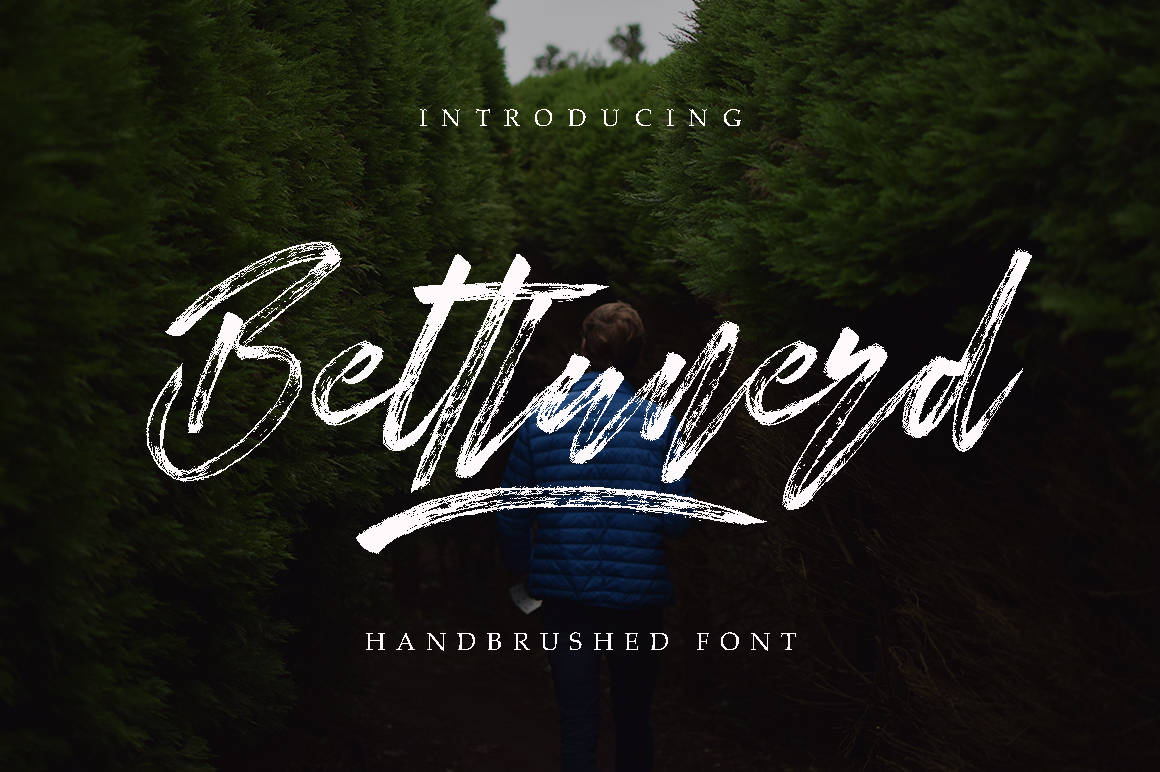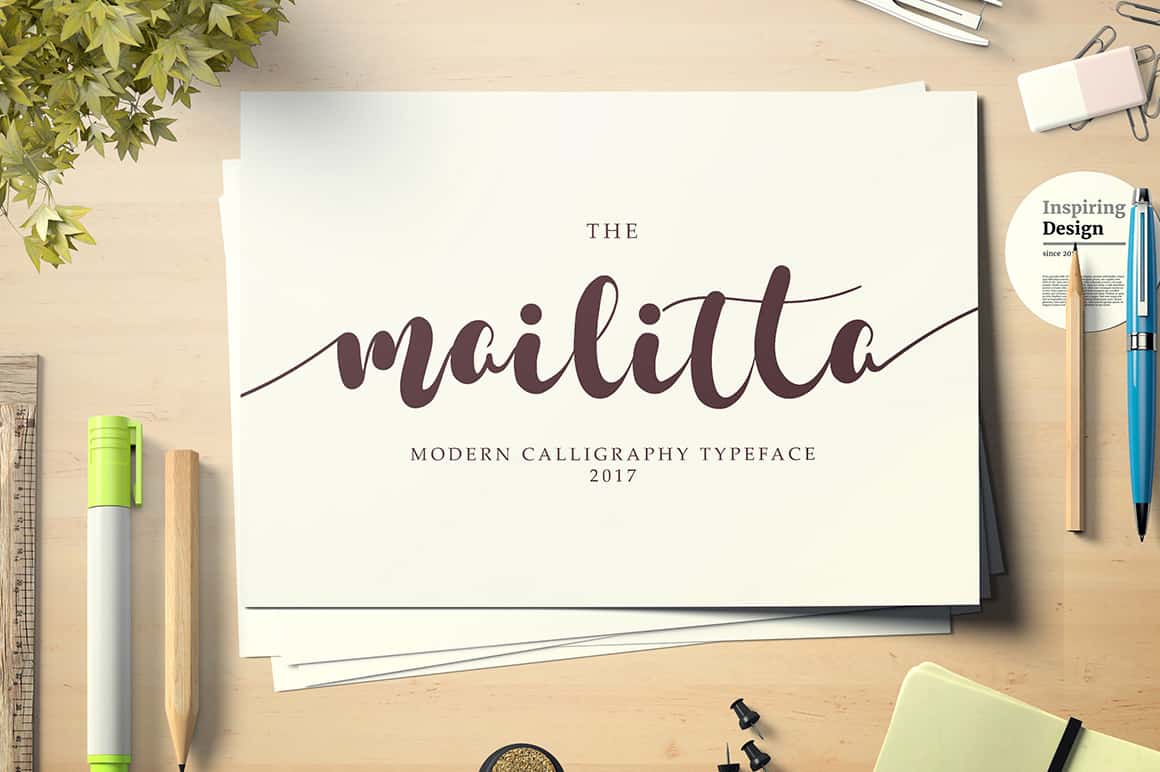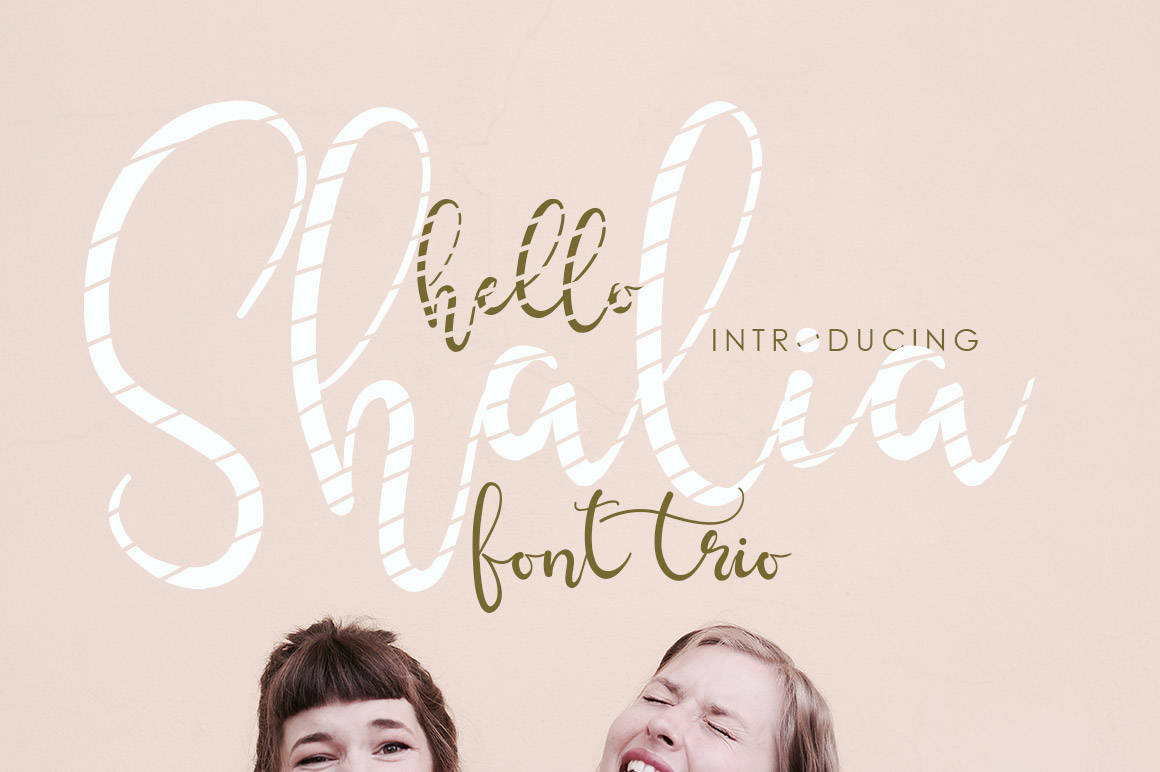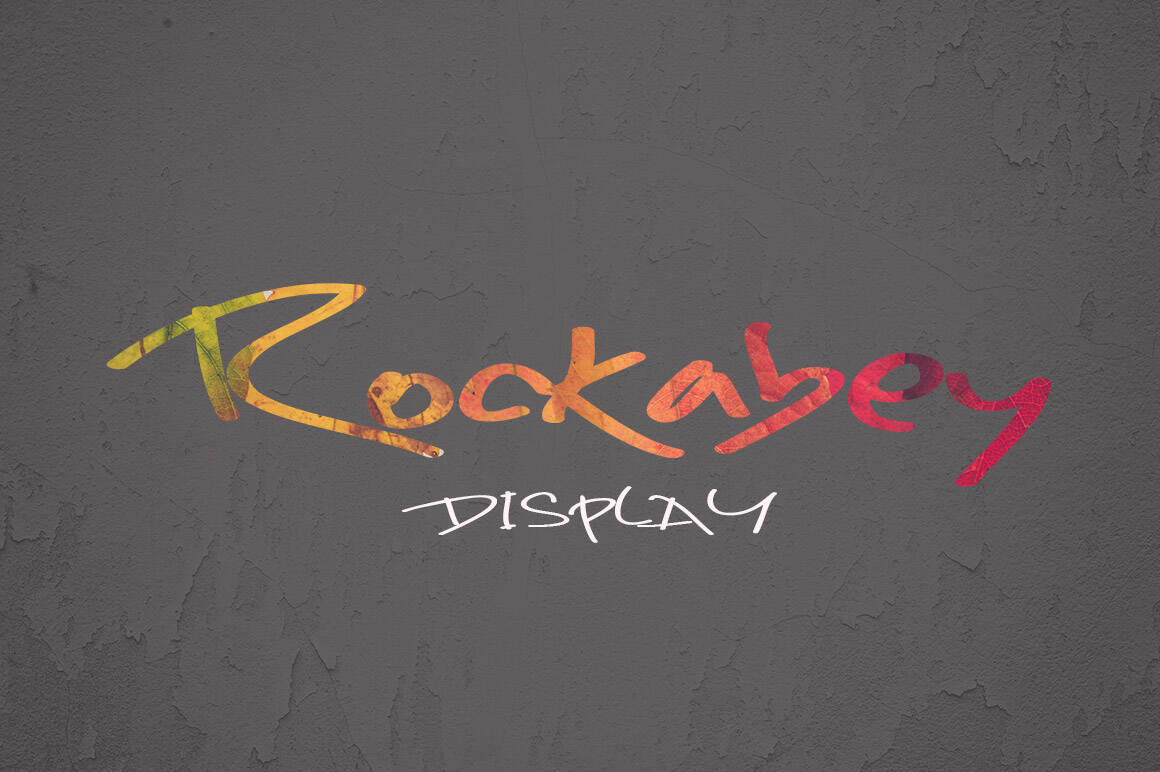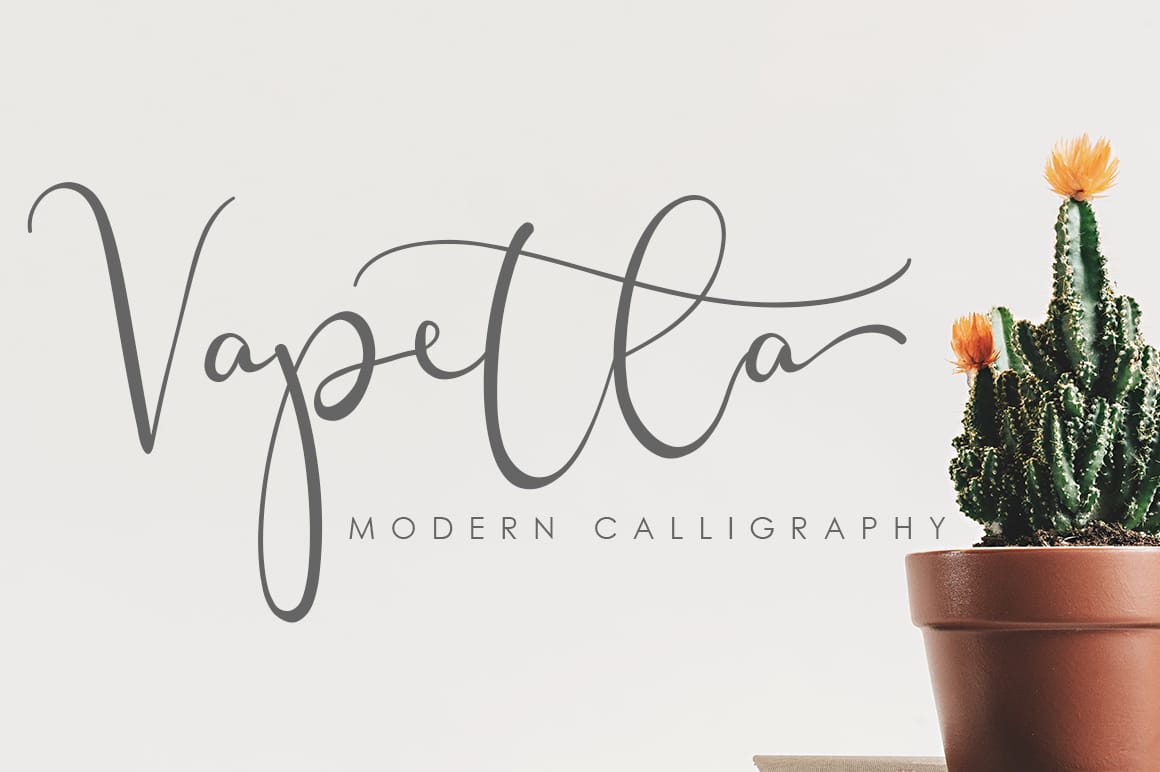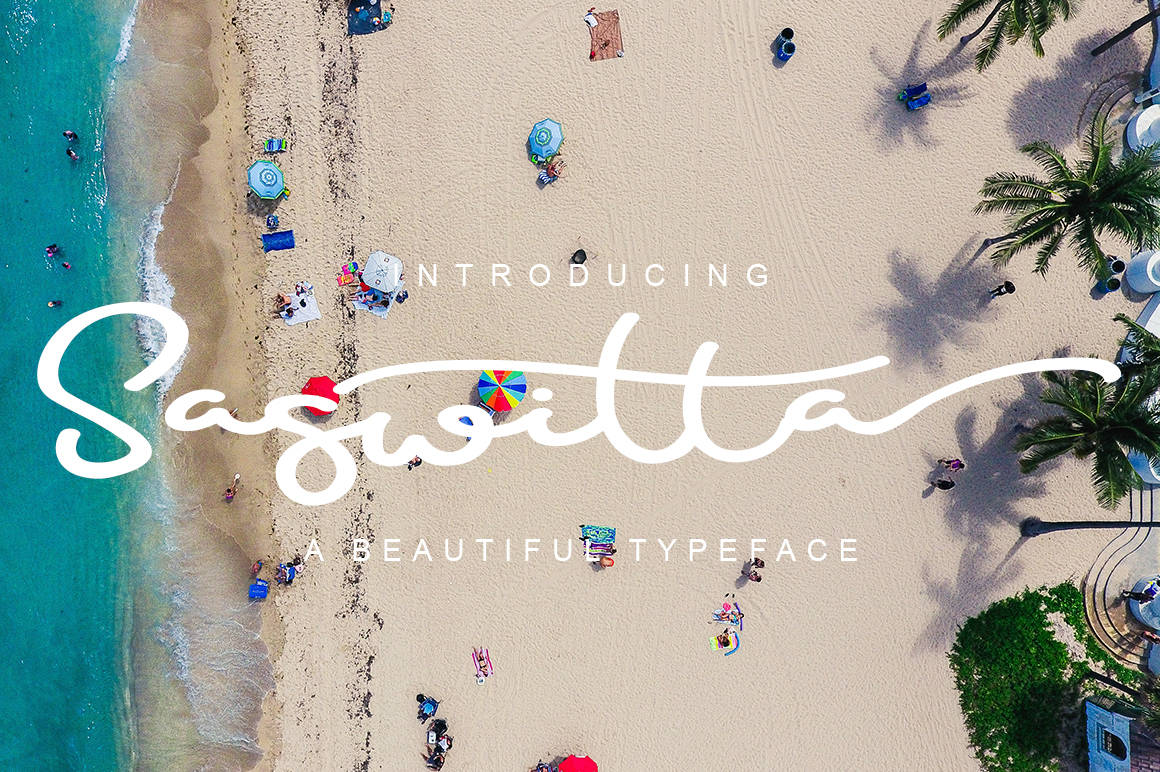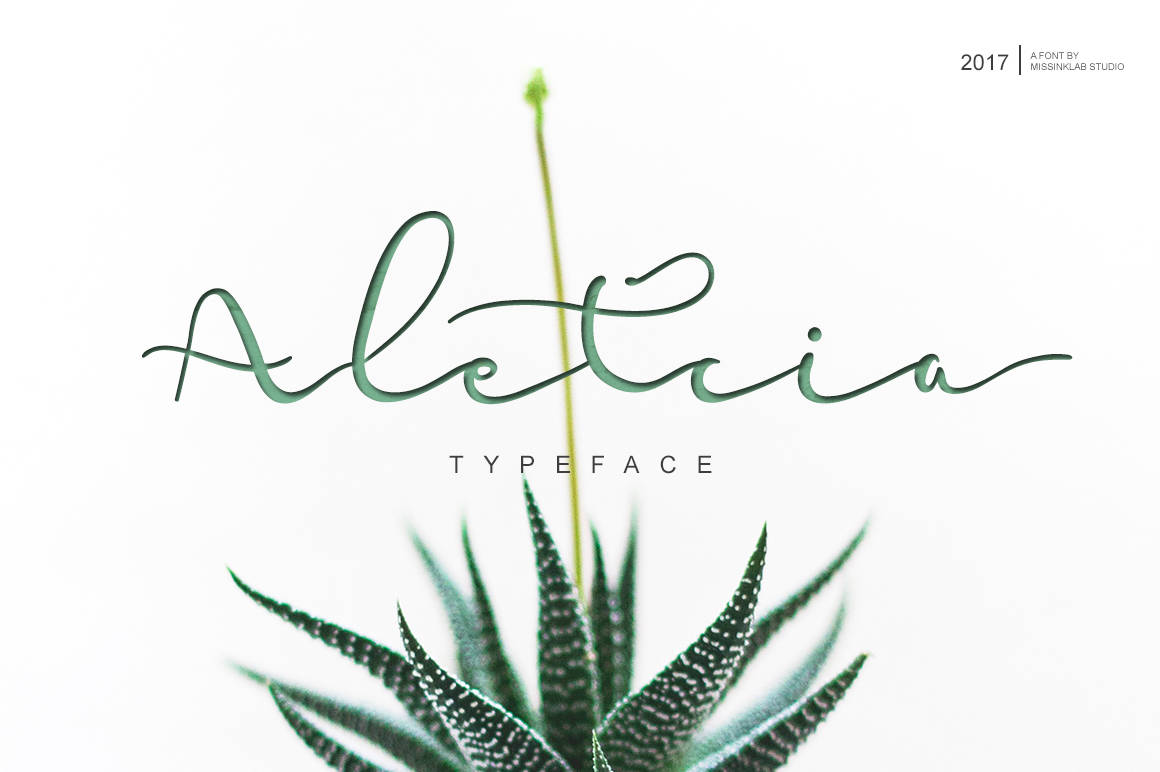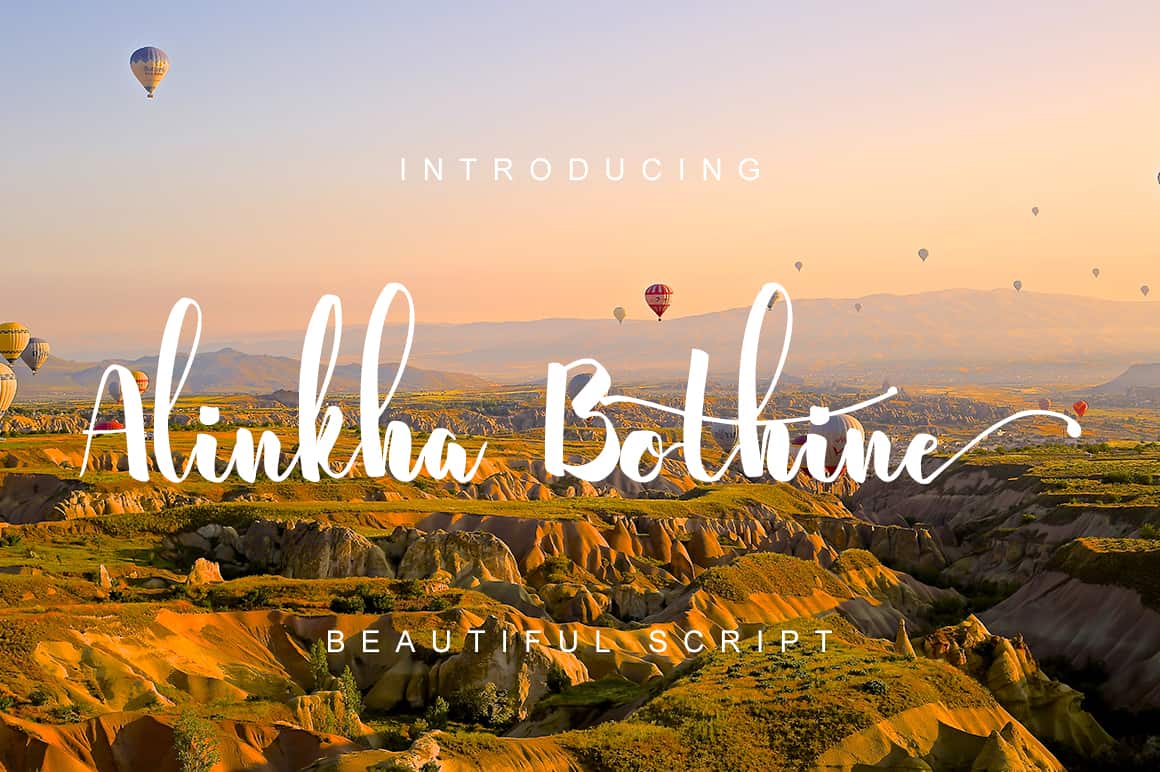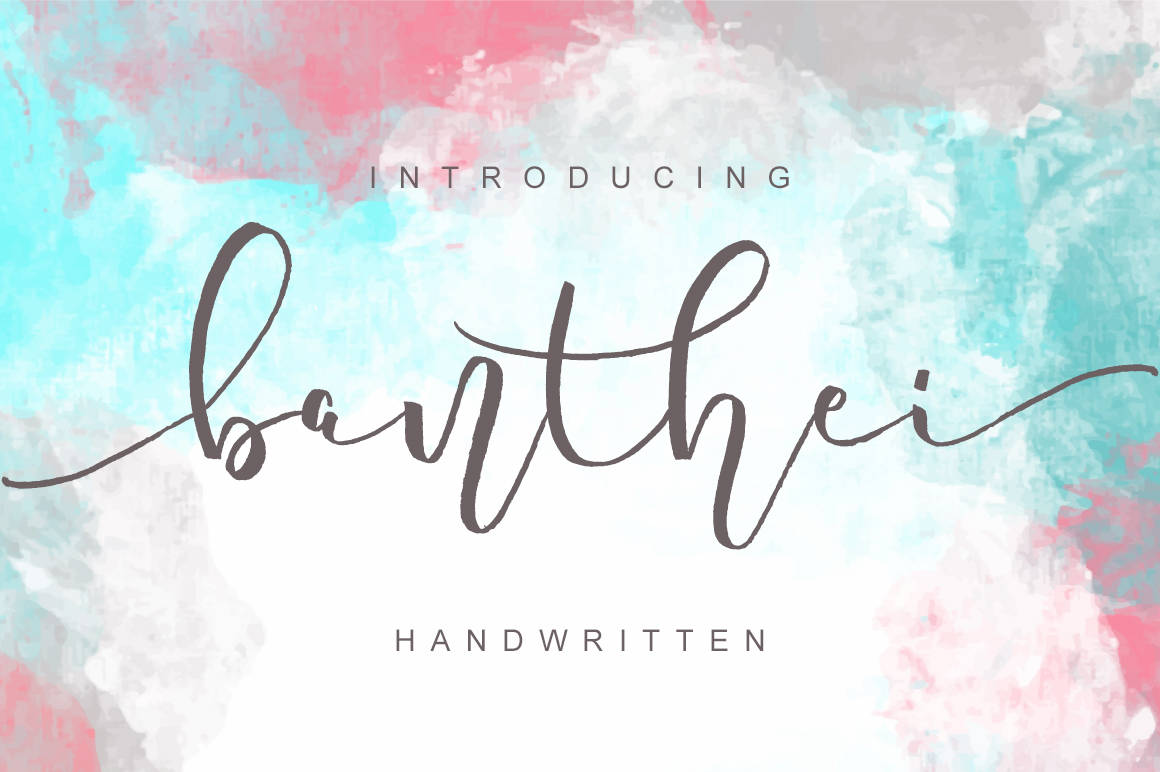
10 STUNNING SCRIPT FONT FOR CRICUT PROJECT UNDER $3 ONLY
1. Bettlunerd Font
Bettlunerd is a modern brush font. This modern script will work great on different projects and will allow you to add a stylish, personal touch.
2. Mailitta Font
Mailitta is a modern script typeface that works well in different projects. Convert your text into stunning pieces of art within seconds.
3. Hello Shalia Font
Hello Shalia is a modern script font. It features a handwritten style that works great in many different projects.
4. Rockabey Font
Rockabey is a classic handwritten font with a modern style.
5. Vapetla Font
Vapetla is a stunning modern typeface with a classic look & feel. It’s a font that works great in many different types of designs.
6. Saswitta Font
Saswitta is a beautiful script typeface that features a modern style.
7. Aletcia Font
Aletcia is a gorgeous handwritten script font with a modern style.
8. Alinkha Bothine Font
Alinkha Bothine is a stunning handmade script font with a classic style.
9. Banthei Font
Banthei is a stunning handwritten font with a modern script style. It’s perfect for many different type of craft & corporate projects.
10. Demittri Font
Demittri is a modern script font where every single letter has been carefully crafted by hand to create a coherent look & feel.
The modern script style will work great in many types of projects.